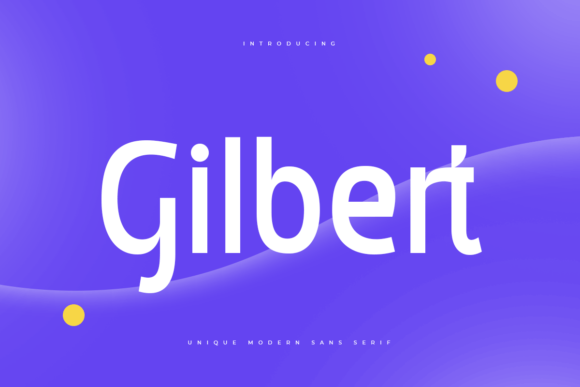
Gilbert Font: Elevate Your Designs with a Bold and Assertive Sans Serif
In the world of typography, fonts play a crucial role in conveying messages, expressing emotions, and creating visual identities. For designers and crafters, having the right font in their arsenal can make all the difference in producing stunning and effective designs. This is where Gilbert Font comes in – a bold and assertive sans serif font that can elevate any creation.
The Power of Sans Serif Fonts
Sans serif fonts have been a staple in graphic design for decades, and for good reason. They offer a clean, modern, and versatile aesthetic that can be applied to a wide range of projects, from branding and advertising to digital media and publishing. Sans serif fonts are also highly legible, making them perfect for body text, headlines, and titles.
Introducing Gilbert Font
Gilbert Font is a bold and assertive sans serif font designed to make a statement. Its strong, confident lines and geometric shapes make it perfect for headlines, titles, and emphasis text. The font’s bold weight ensures that it will grab attention, while its clean and simple design ensures that it will not overwhelm the content.
Key Features of Gilbert Font
- Bold and Assertive: Gilbert Font is designed to make a statement, with a bold weight that demands attention.
- Clean and Simple: The font’s clean and simple design ensures that it will not overwhelm the content, making it perfect for a wide range of applications.
- Highly Legible: Gilbert Font is highly legible, even at small sizes, making it perfect for body text, headlines, and titles.
- Versatile: The font’s sans serif design makes it versatile and adaptable to a wide range of projects and applications.
Use Cases for Gilbert Font
Gilbert Font is an incredibly versatile font that can be used in a wide range of applications, including:
- Branding and Identity: Use Gilbert Font to create bold and memorable logos, business cards, and letterheads.
- Advertising and Marketing: Gilbert Font is perfect for headlines, titles, and emphasis text in advertising and marketing materials.
- Digital Media: Use Gilbert Font to create stunning digital media, including social media graphics, videos, and presentations.
- Publishing: Gilbert Font is suitable for use in publishing, including books, magazines, and newspapers.
Tips for Using Gilbert Font
To get the most out of Gilbert Font, here are a few tips to keep in mind:
- Use it boldly: Gilbert Font is designed to make a statement, so don’t be afraid to use it boldly and prominently.
- Pair it with contrasting fonts: Pair Gilbert Font with contrasting fonts to create visual interest and hierarchy.
- Experiment with colors: Gilbert Font looks great in a wide range of colors, so don’t be afraid to experiment and find the perfect color scheme.
Gilbert Font is a bold and assertive sans serif font that can elevate any creation. Its strong, confident lines and geometric shapes make it perfect for headlines, titles, and emphasis text. With its high legibility, versatility, and wide range of applications, Gilbert Font is an incredible asset to any designer’s font library. Whether you’re a designer, crafter, or simply someone who appreciates great typography, Gilbert Font is definitely worth checking out.